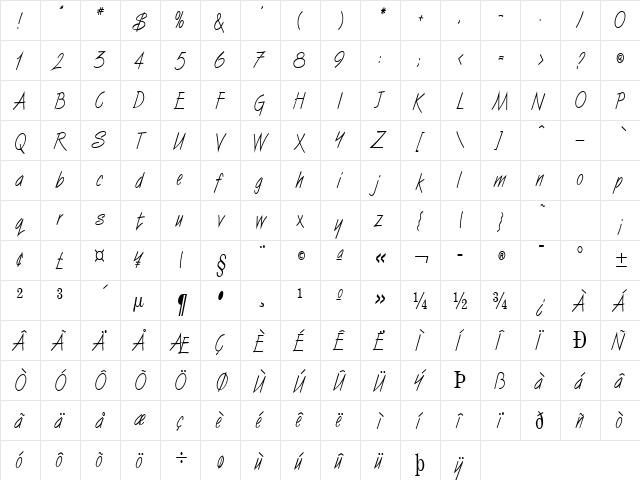
Vizier Condensed Regular
Design Context for Vizier Condensed Typeface
Vizier Condensed is a composed and adaptable typeface that performs quietly and consistently across a wide range of design contexts. The condensed width makes it efficient for tight spaces without sacrificing legibility.